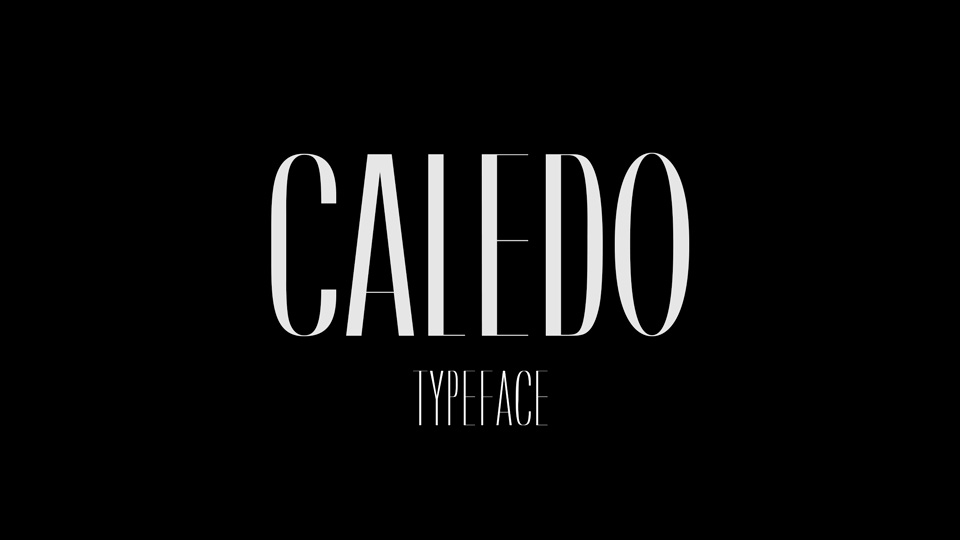
Download Caledo font family, a contrast condensed typeface draw for headline in Light and Bold weights. Great for magazines, social media, advertisement and more.
Designer: Bastien Sozeau